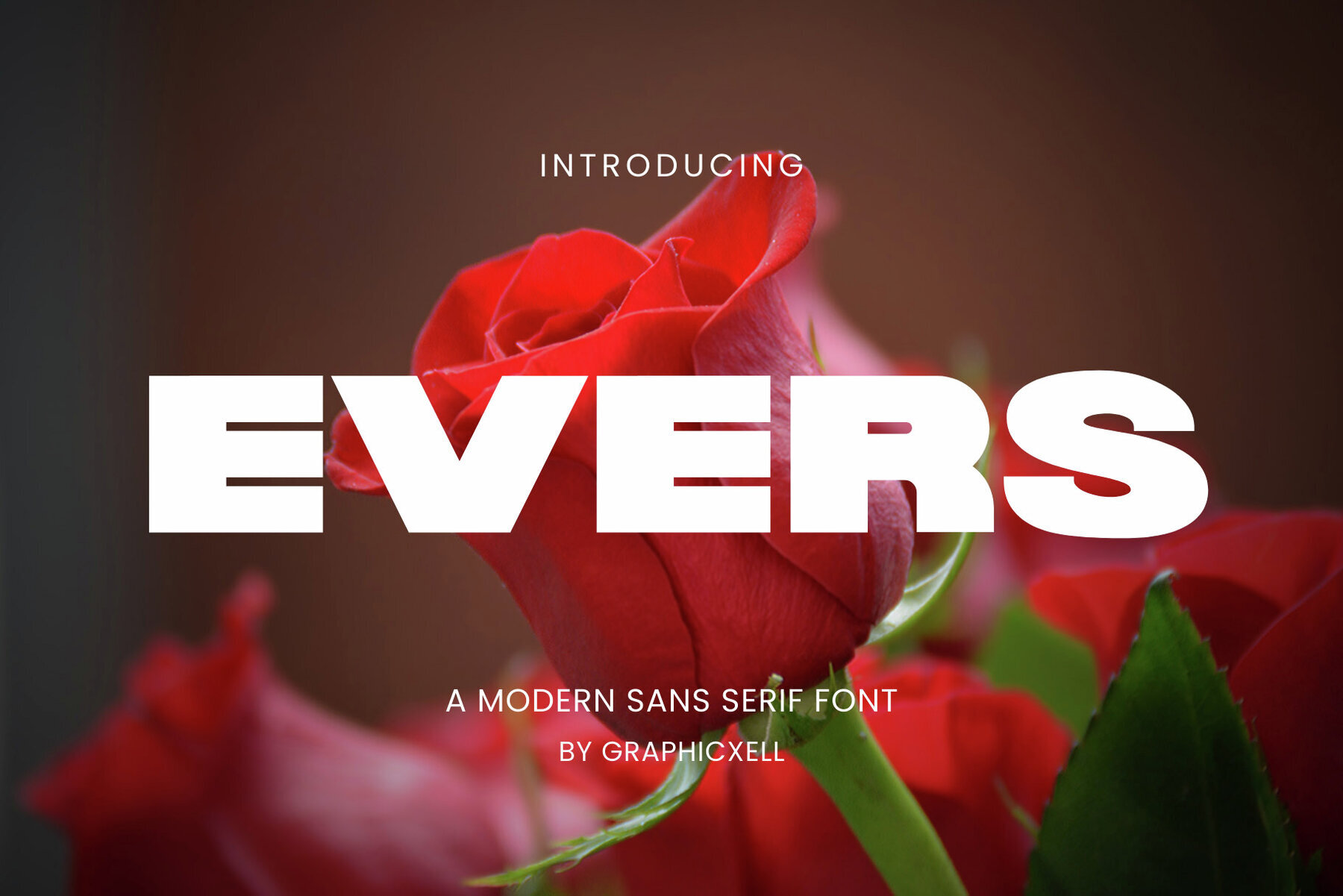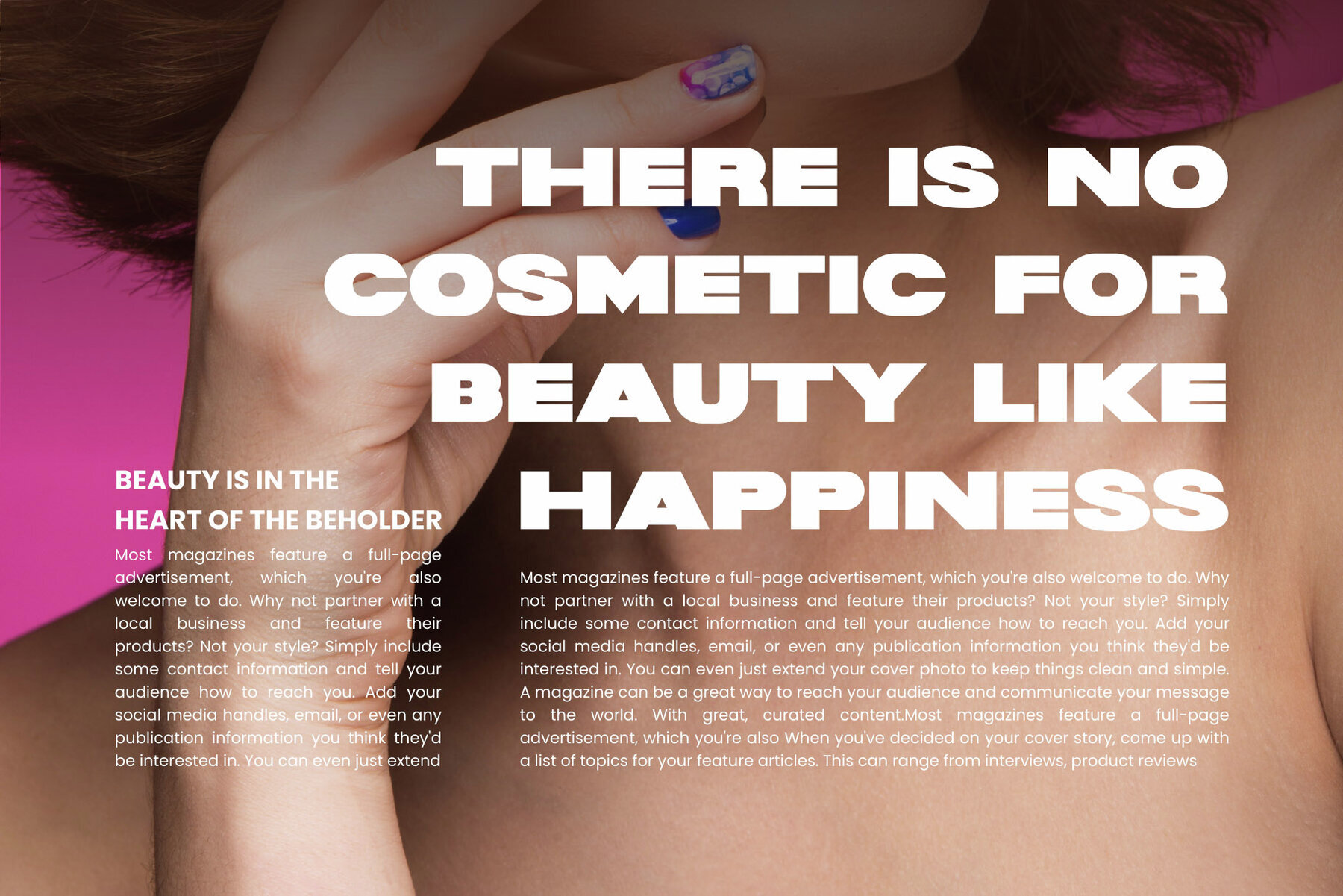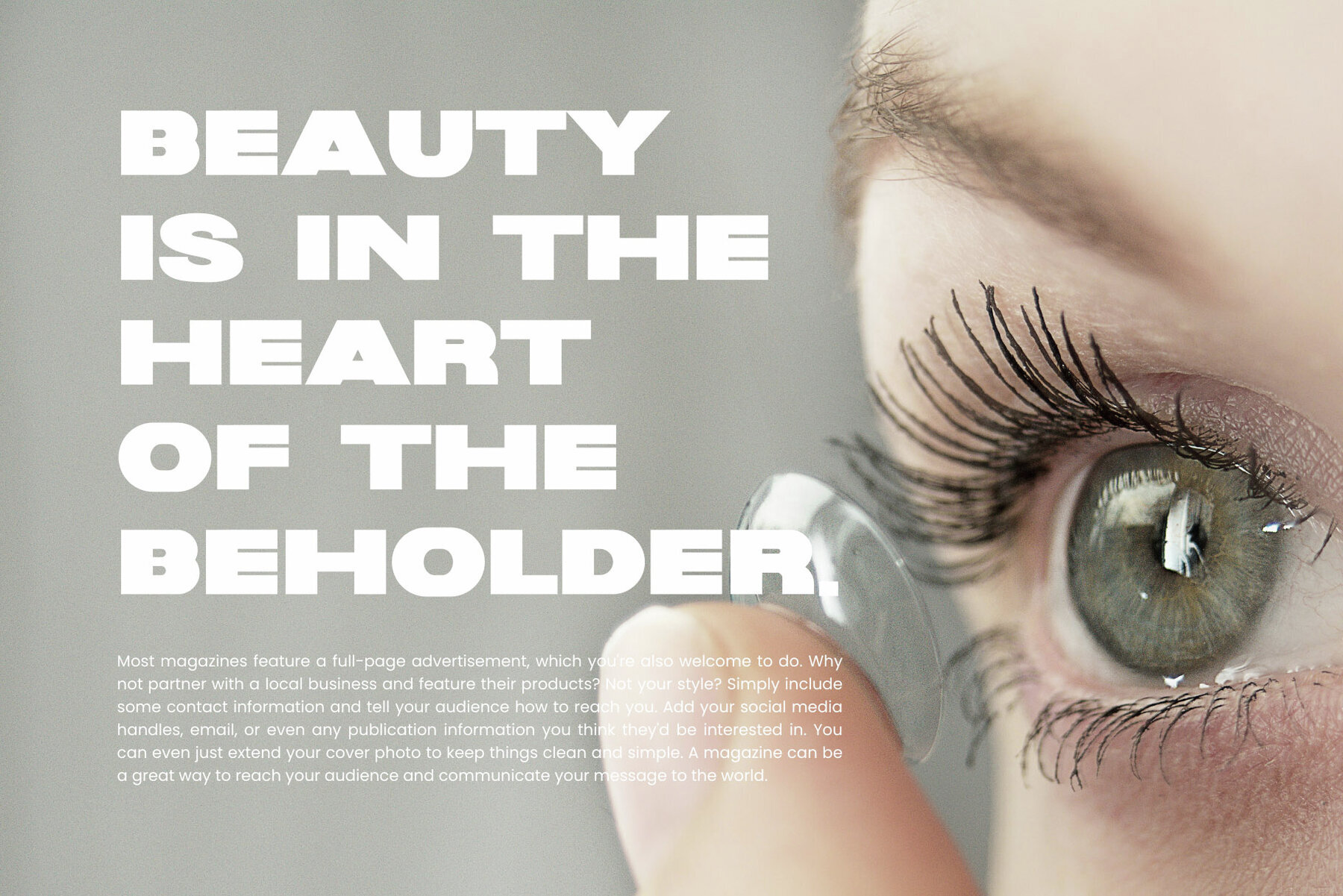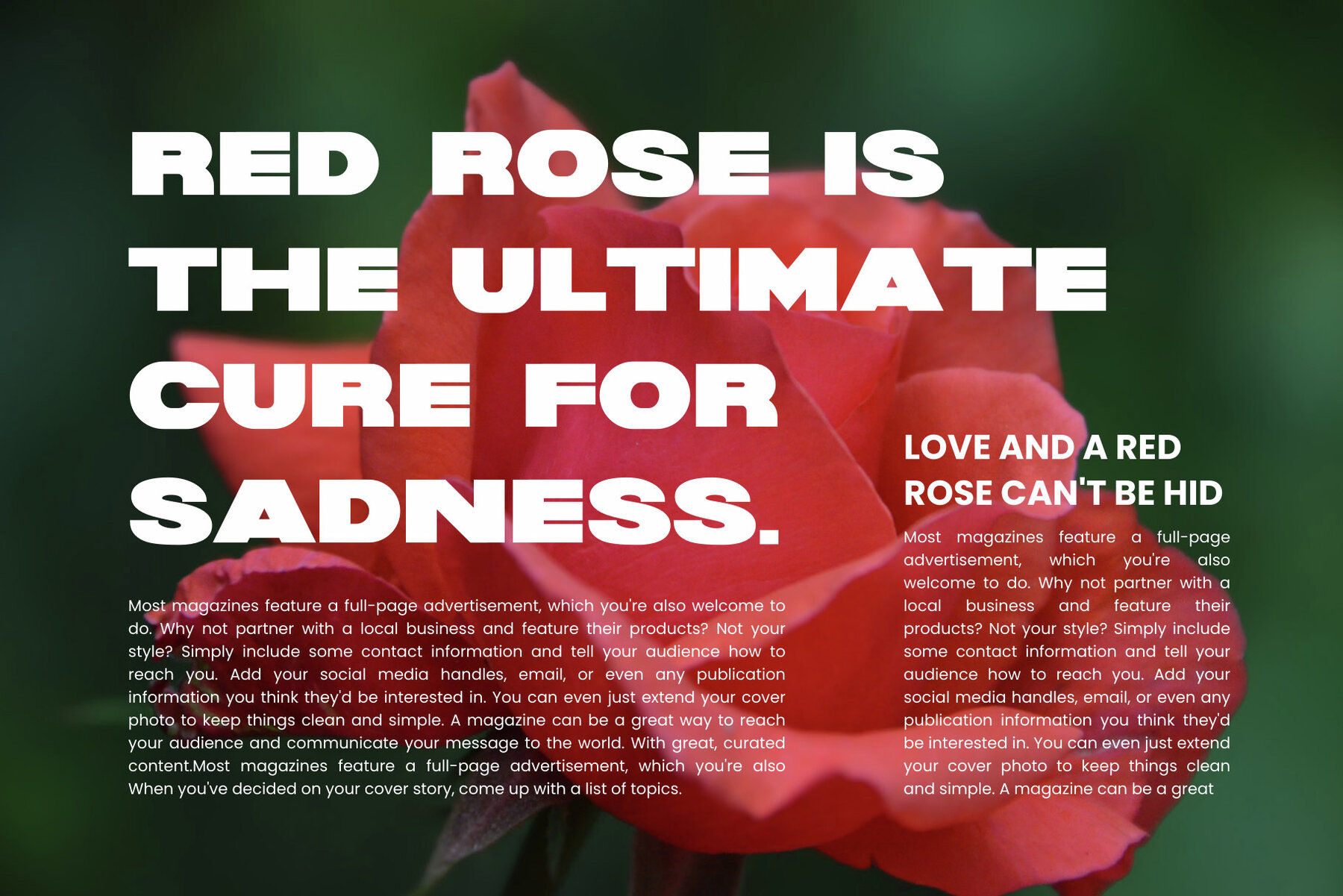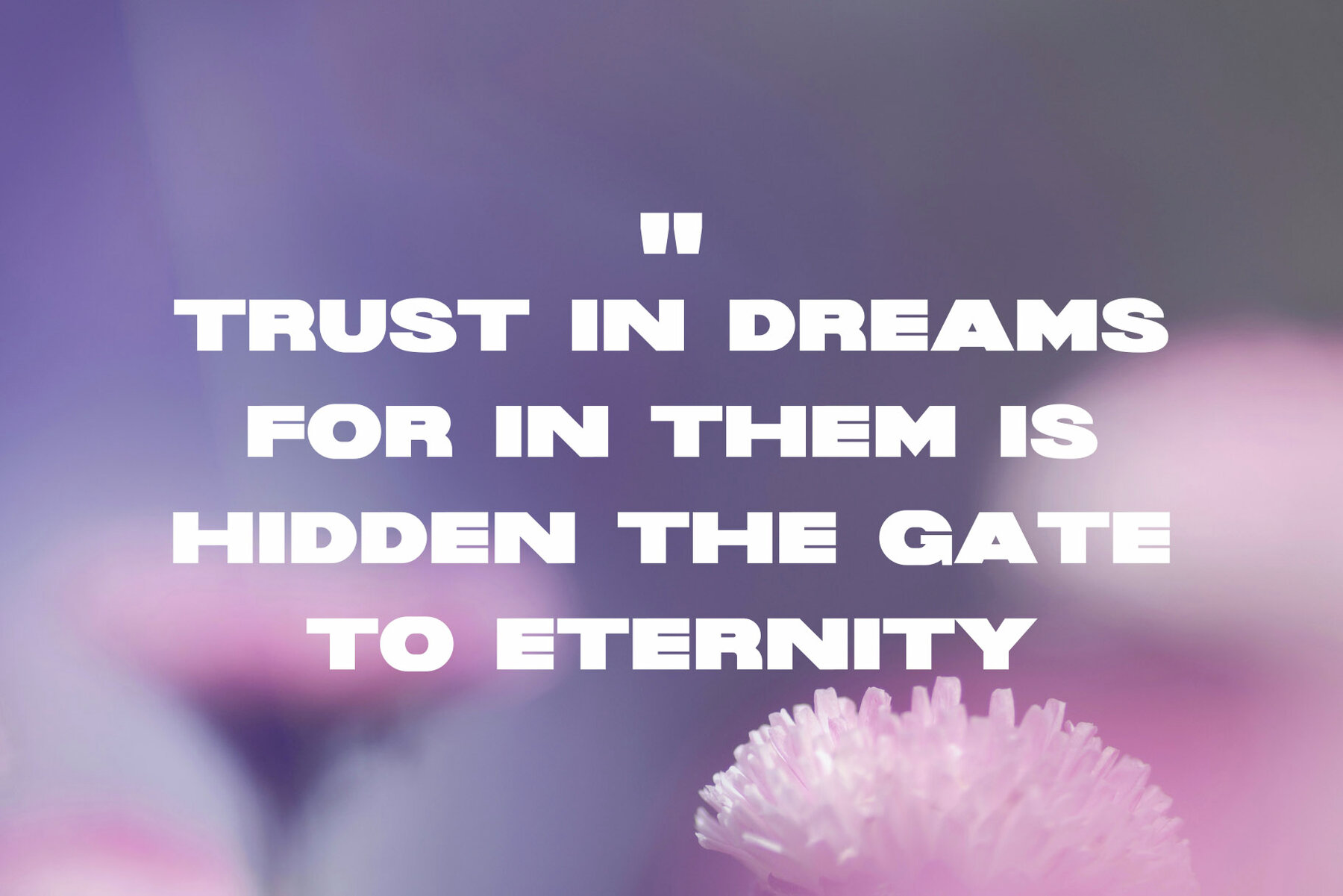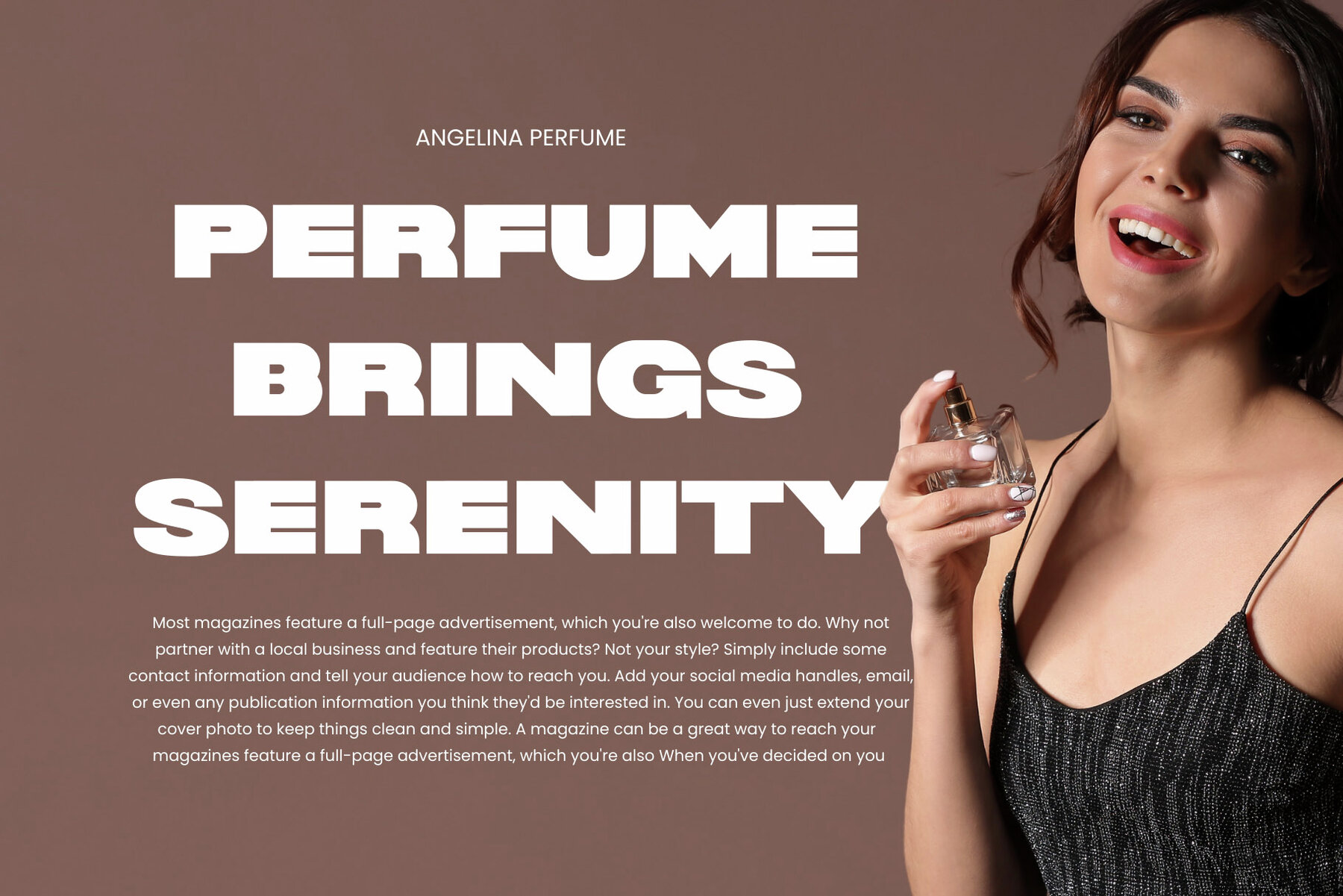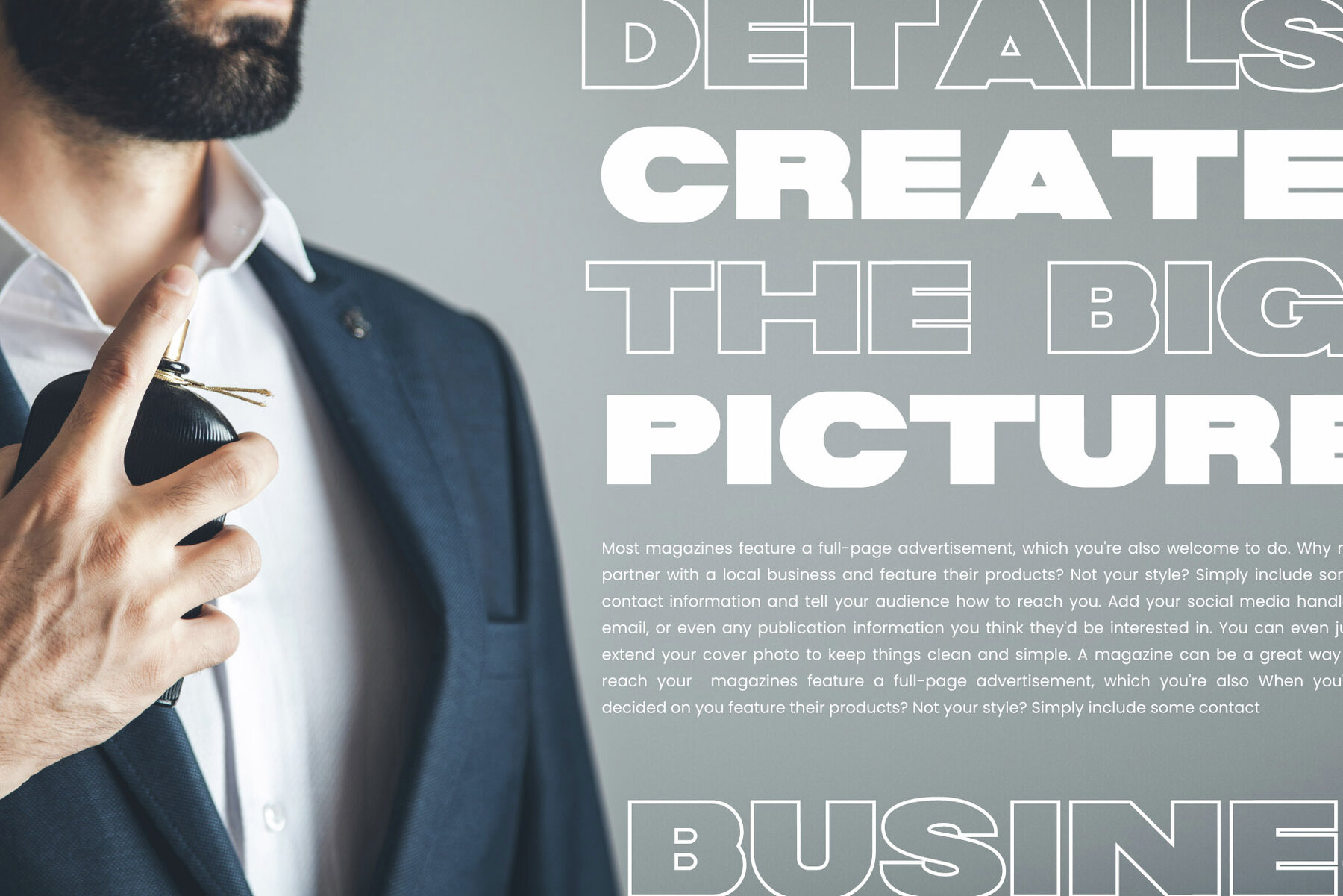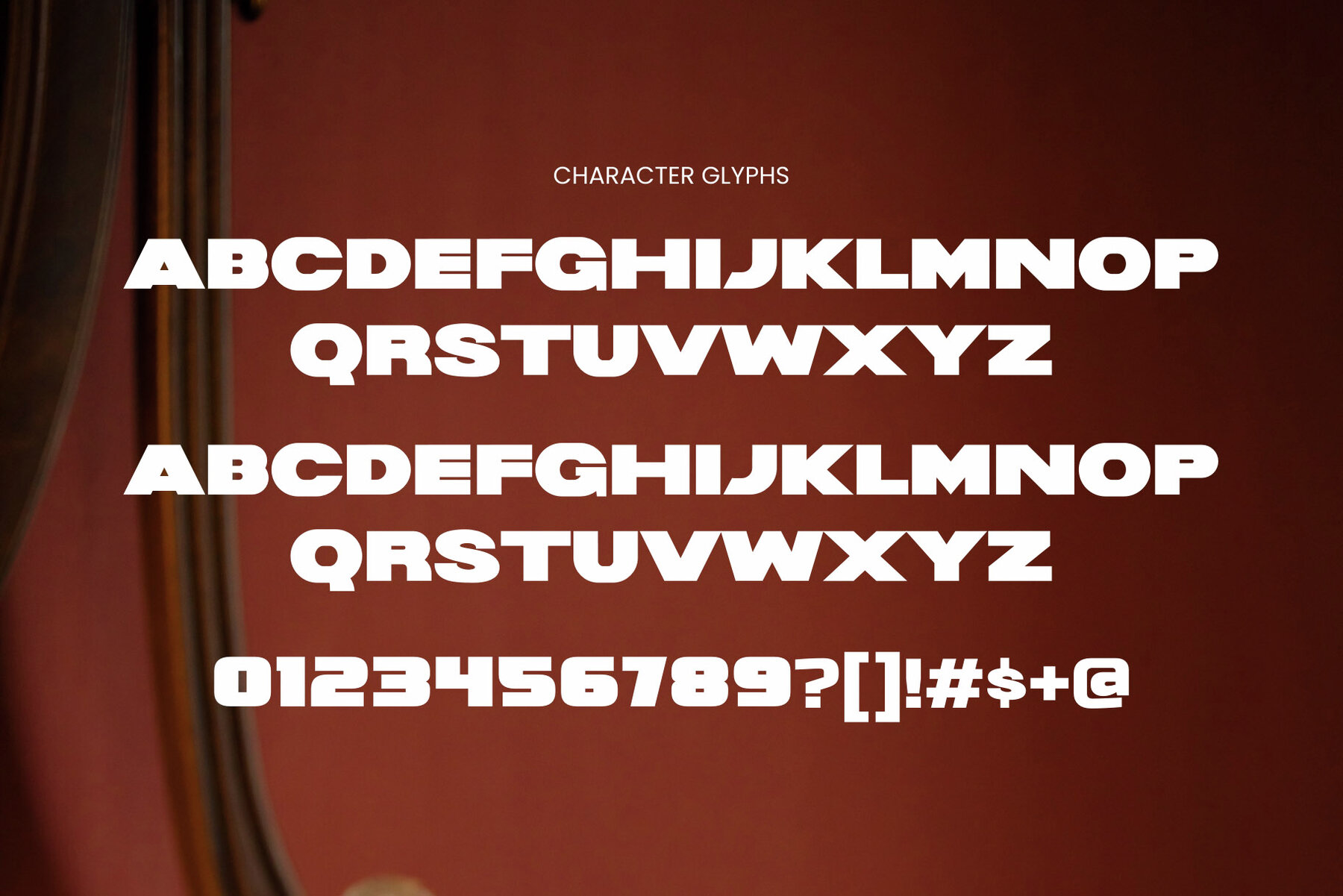
Evers Font
Evers Regular
Drawn from renowned minimalist logos, Evers by Graphicxell offers a refined aesthetic perfect for various creative needs. Whether you're crafting templates, brochures, or video content, this design adds a touch of elegance to your projects.Evers by Graphicxell: Minimalist Logo Inspiration
Versatile Design Uses